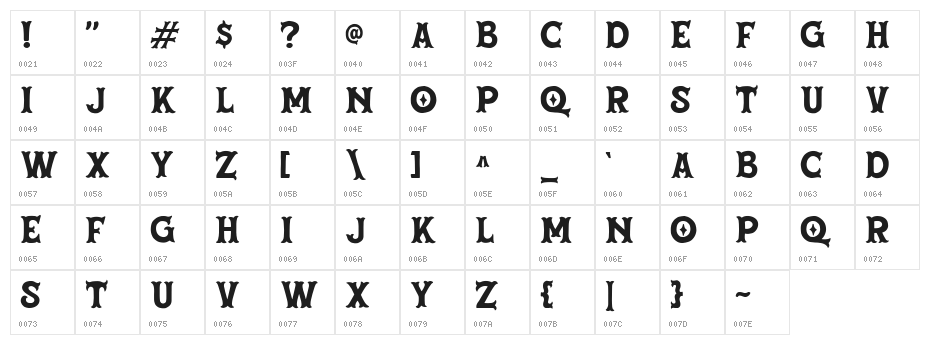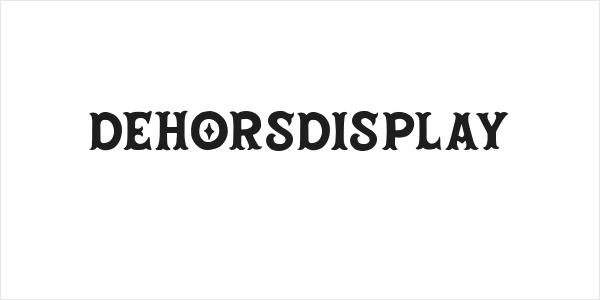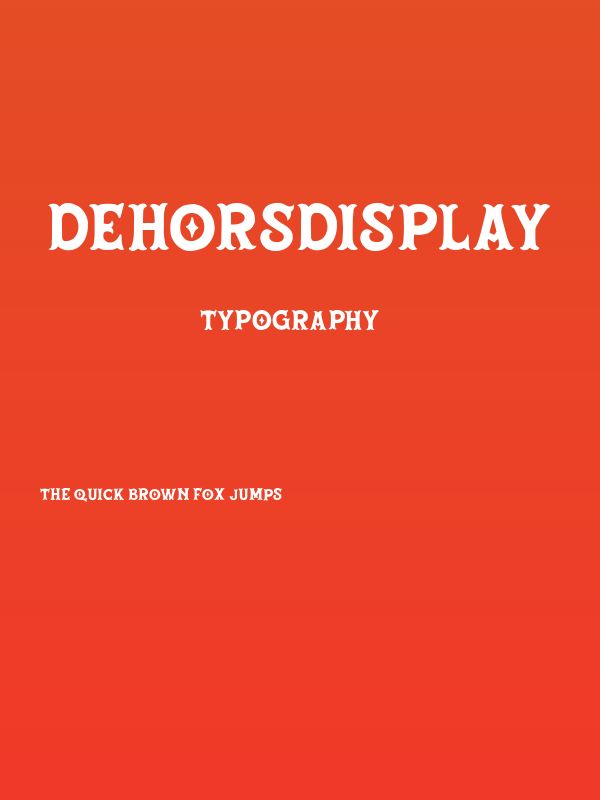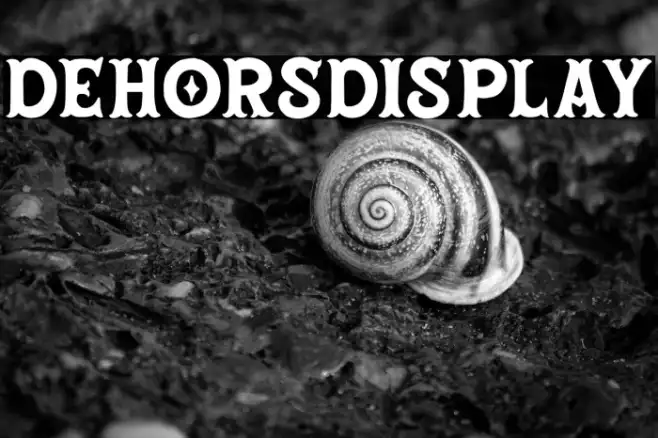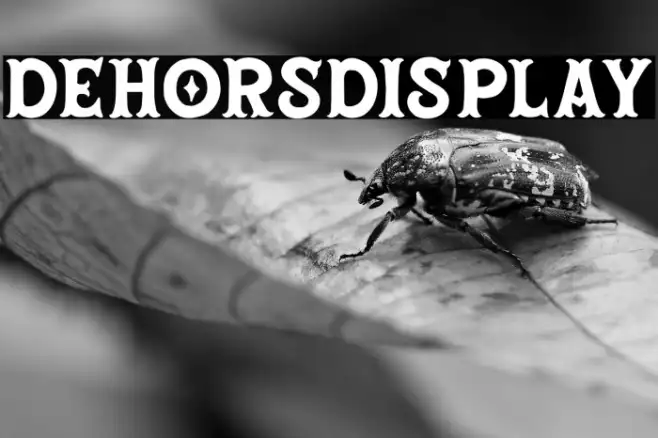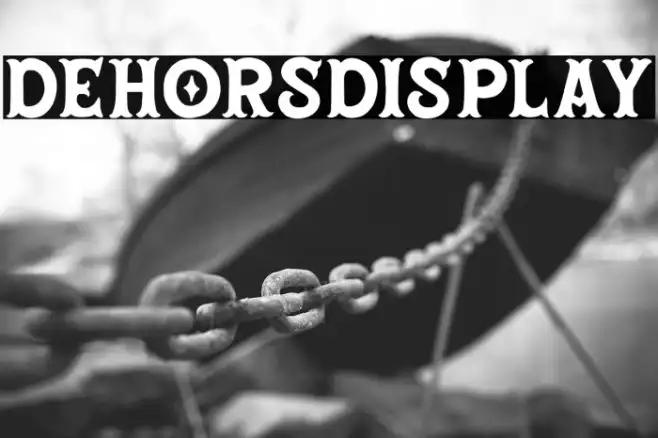
DehorsDisplay Font
DehorsDisplay Description
This font features a bold and dramatic style with thick, heavy strokes and a distinct vintage flair. The characters are adorned with unique, ornamental serifs that give them a slightly gothic appearance. The uppercase letters are particularly striking, with a consistent weight and a sense of grandeur. The lowercase letters maintain the same boldness, ensuring a cohesive look across all text. The numbers and special characters are equally bold, with a playful yet sophisticated design. This font's overall aesthetic is both eye-catching and memorable, making it suitable for projects that require a strong visual impact.
| Proposed Projects | Ideal for posters, logos, book covers, and any design requiring a vintage or gothic touch. |